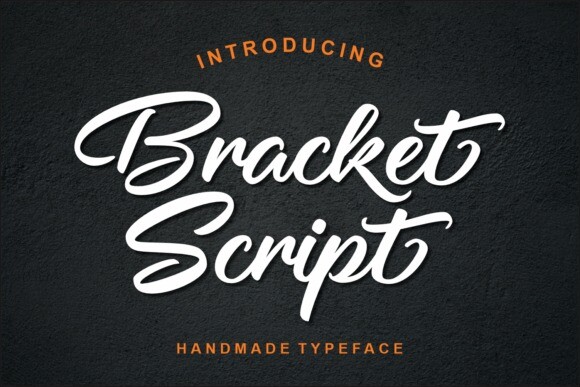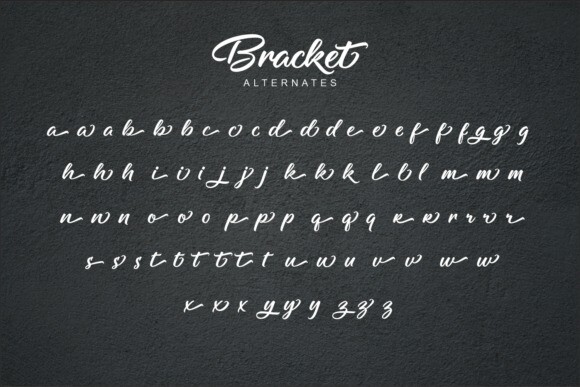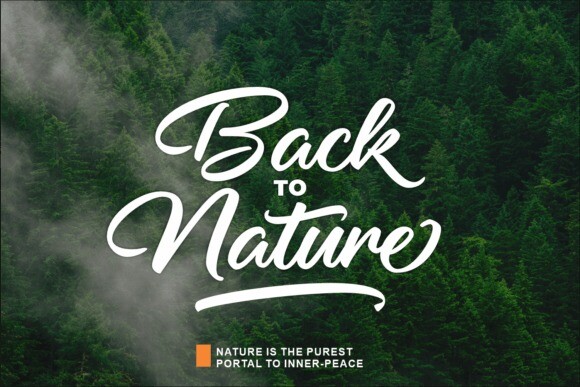
Bracket Script Font
Bracket Script Font is is a bold modern script typeface inspired by natural hand lettering style. Perfect for designing logotype, branding, promotional ads, quotes design, packaging, t-shirt design, poster, merchandise, social media and much more.